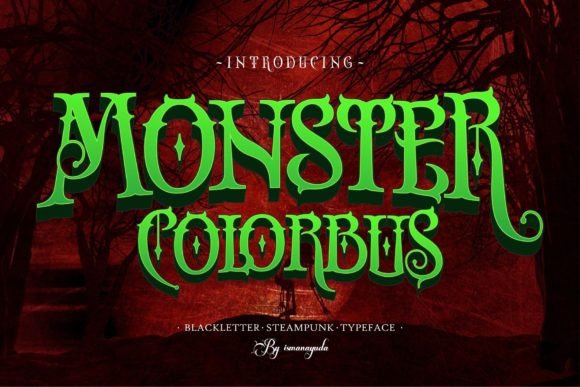
Download Monster Colorbus Font for free! Created by ismanayuda and published by Logan Copeland, this blackletter font family is perfect for adding a unique touch to your designs.